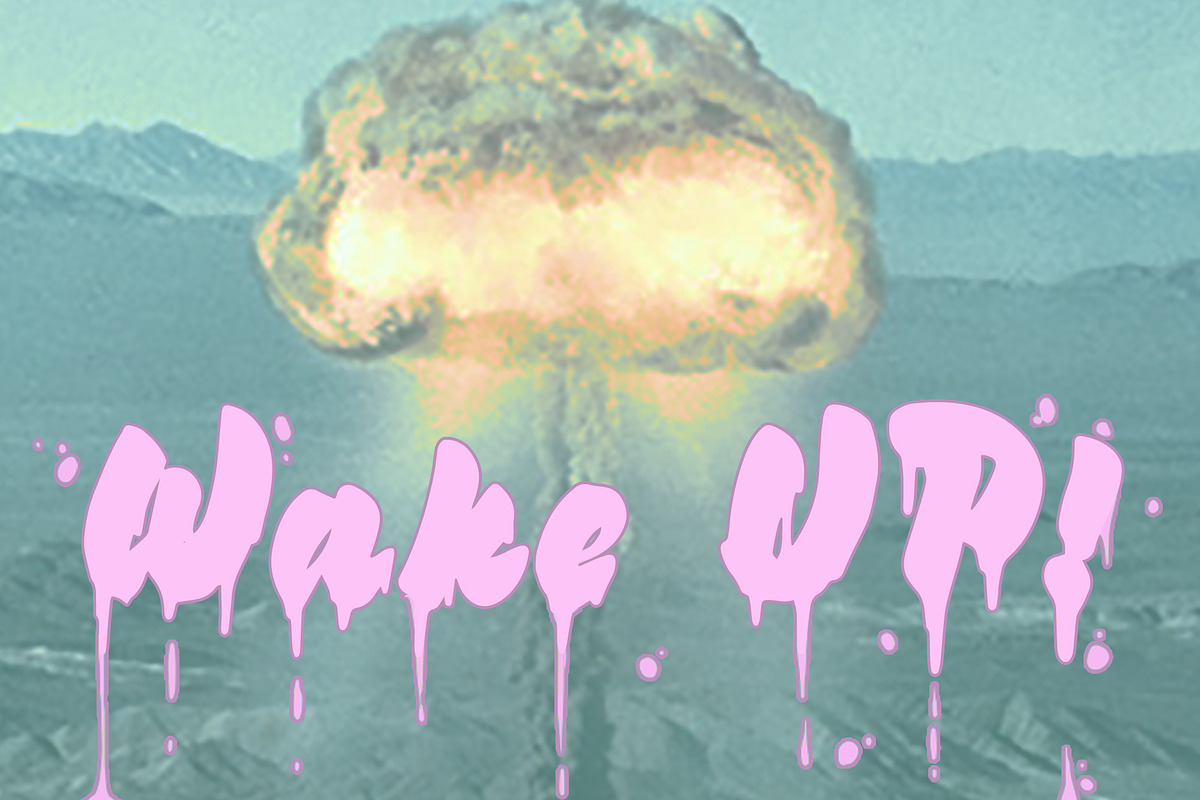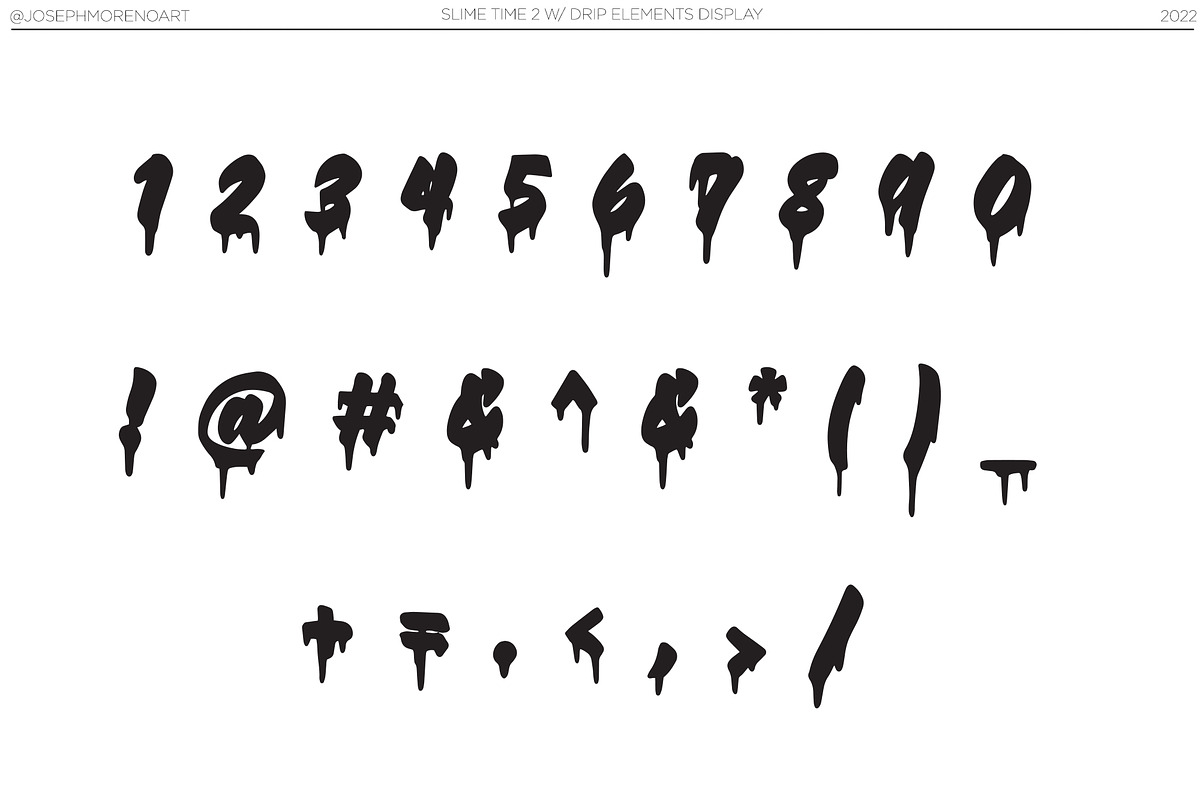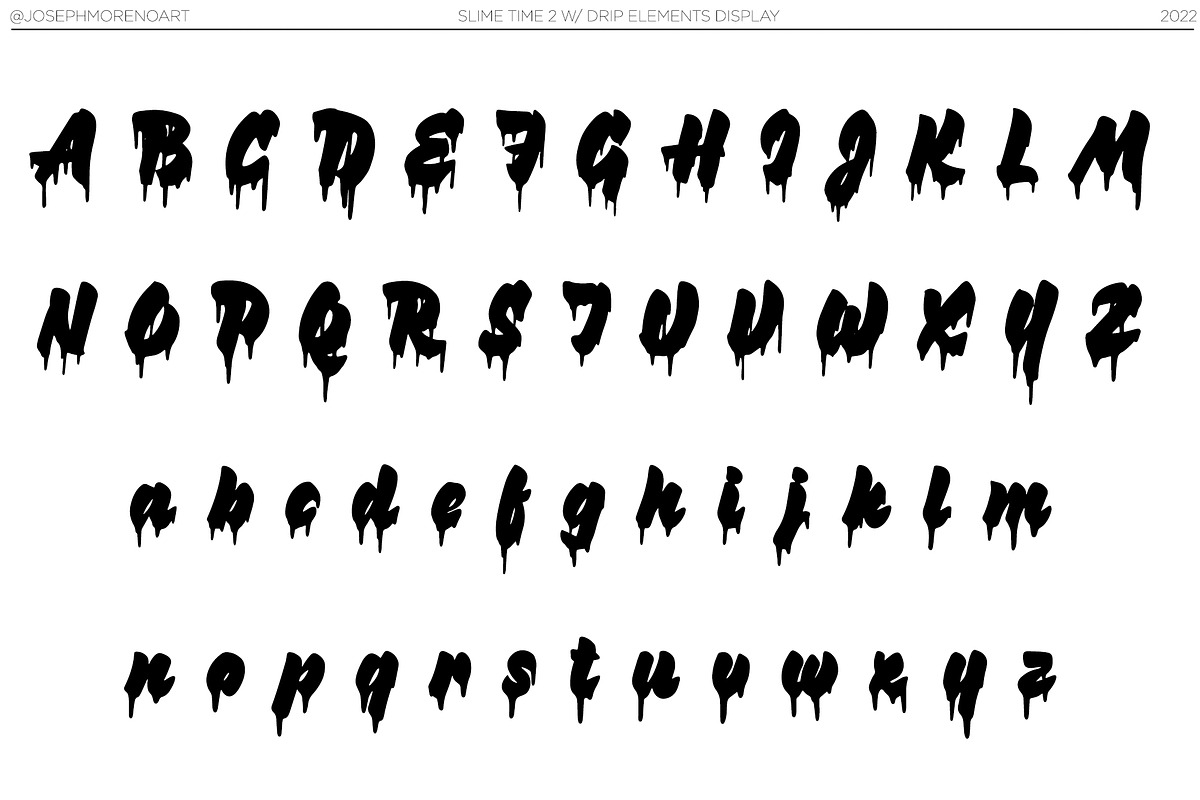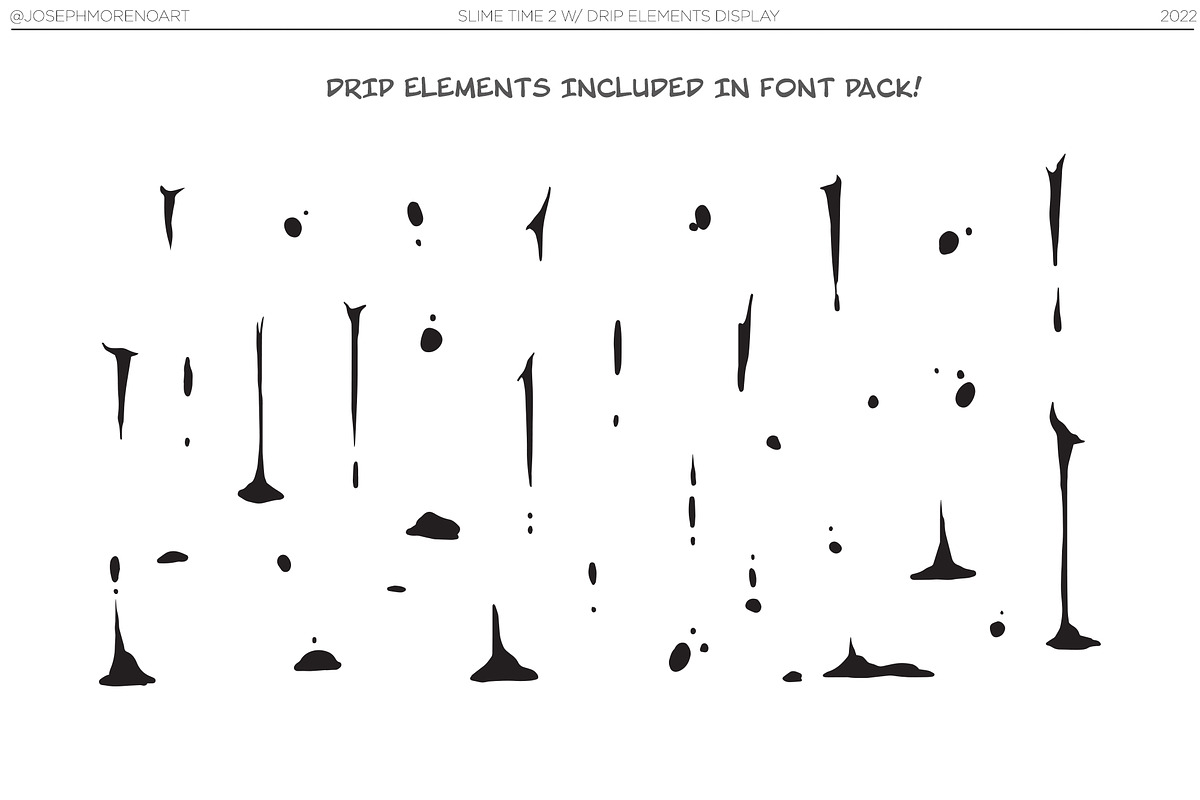
Slime Time 2
Slime Time 2 is the upgraded version of the original "Slime Time" font. It is a drip-style font. And also serves as a melting style font for all kinds of different designs. I will continue to upgrade as long as I keep getting a good response.